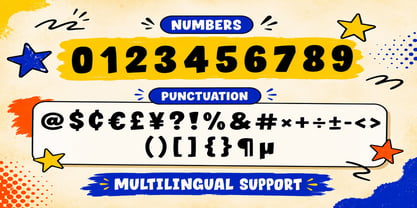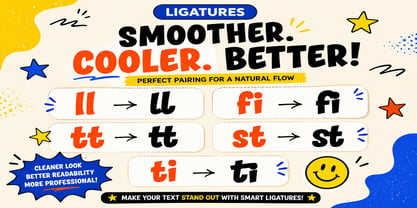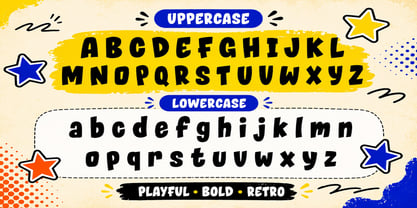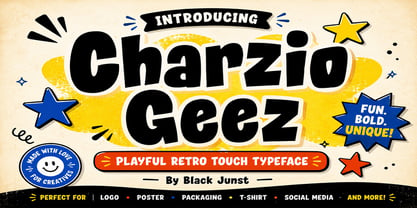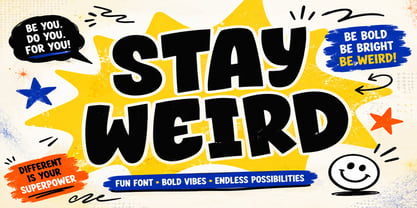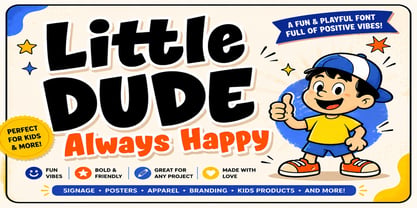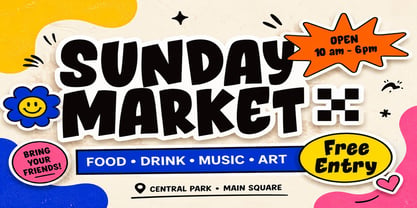
Charzio Geez
por Black Junst
La familia tipográfica Charzio Geez fue diseñada por Maulana Semar y publicada por Black Junst. Charzio Geez contiene 2 estilos y opciones de paquete familiar. Más información sobre esta familia
Charzio Geez is a bold, playful display font that brings a cheerful retro vibe with a fresh modern twist. Designed with chunky letterforms, soft curves, and eye-catching personality, this typeface is perfect for designers who want to create memorable branding and fun visual identities.
Whether you're working on logos, product packaging, posters, children's projects, social media graphics, YouTube thumbnails, café branding, stickers, t-shirt designs, or merchandise, Charzio Geez instantly adds warmth, energy, and character to every design.
Its handcrafted appearance makes it ideal for projects that need to feel friendly, creative, nostalgic, and full of life. Inspired by vintage typography while refined for today's design trends, Charzio Geez delivers excellent readability with a unique handcrafted feel that helps your work stand out from the crowd.
Diseñadores: Maulana Semar
Fundición: Black Junst